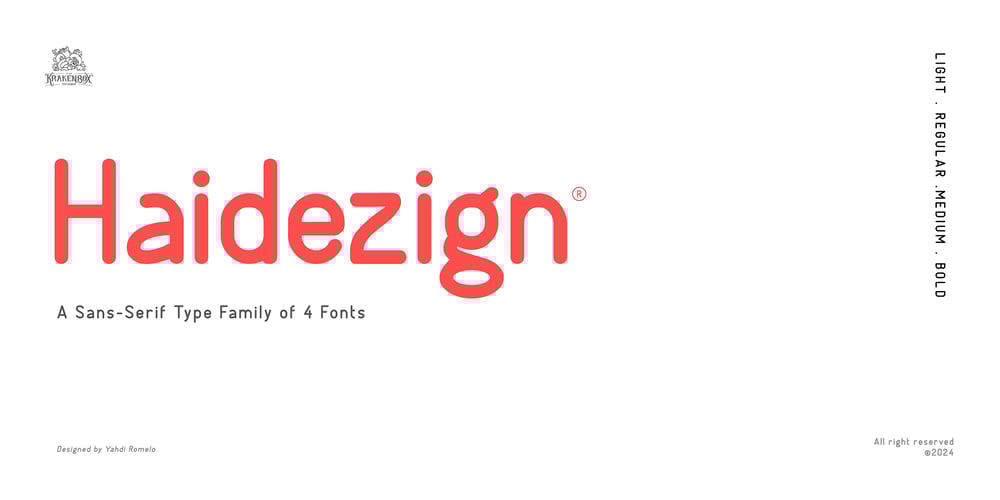
Haidezign Font Family was designed by Yahdi Kumala and published by Krakenbox Studio. Haidezign contains 4 styles and family package options. Introducing Haidezign, a modern sans serif font meticulously crafted to bring clarity and sophistication to your design projects. With its clean lines and balanced proportions, Haidezign offers a versatile canvas for your creativity, allowing your content to shine with clarity and precision.Perfect for a wide range of applications, from corporate branding to web design and beyond, Haidezign exudes professionalism and modernity at every turn. Its understated elegance and timeless appeal make it the ideal choice for conveying a sense of trustworthiness and reliability in any context.Elevate your designs with Haidezign’s crisp typography and impeccable legibility, ensuring that your message is always delivered with clarity and impact. Whether you’re crafting sleek logos, sleek headlines, or sleek body text, this font is the perfect companion for bringing your vision to life with style and sophistication.